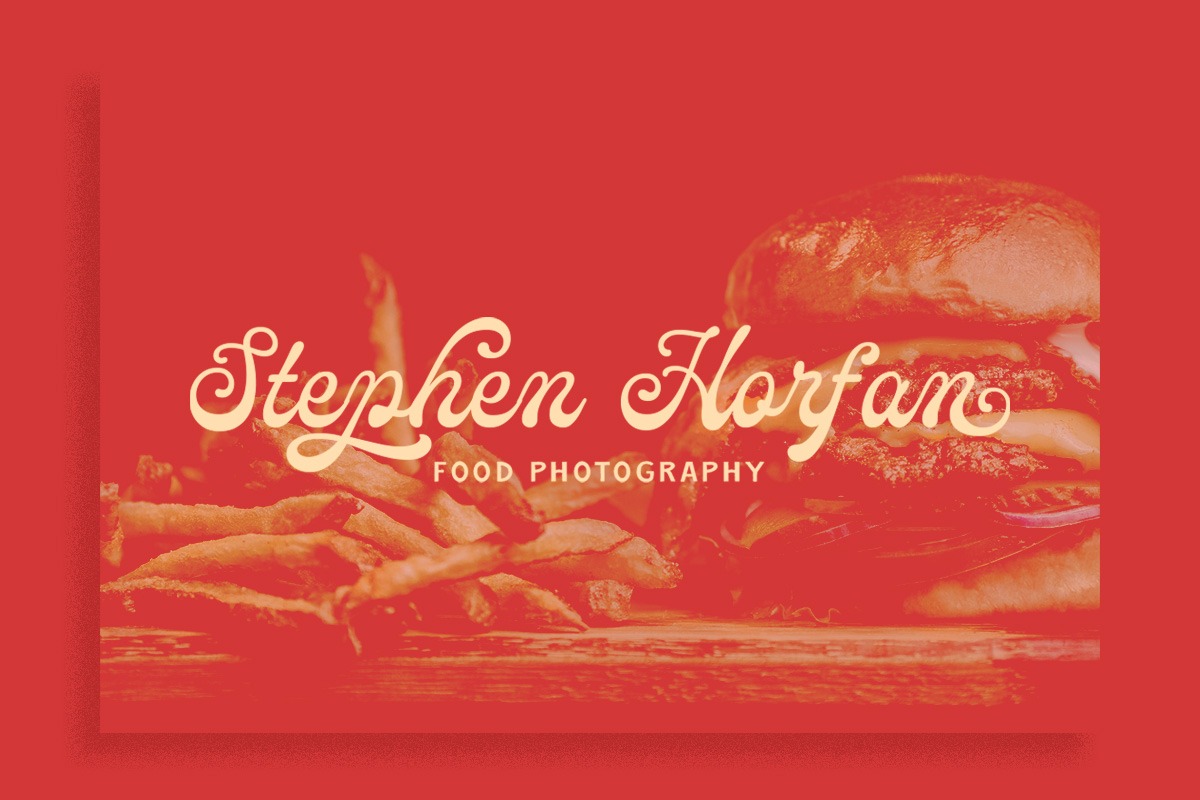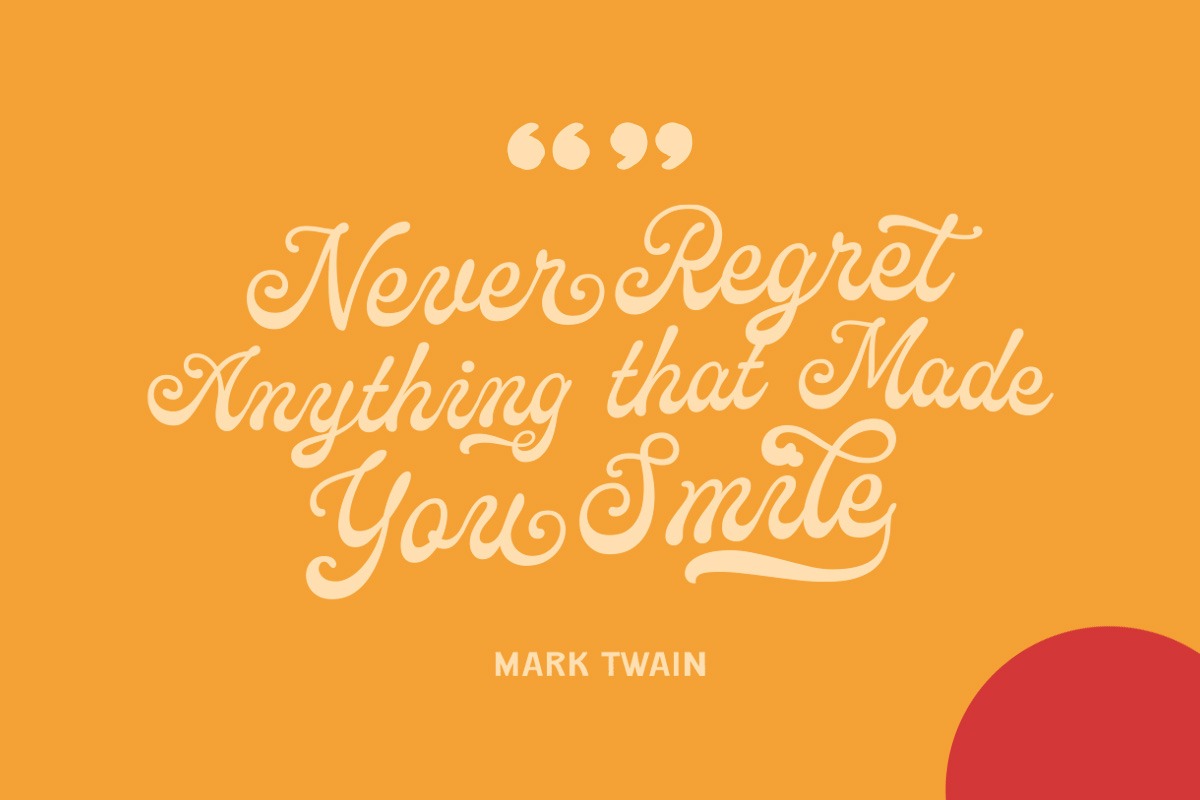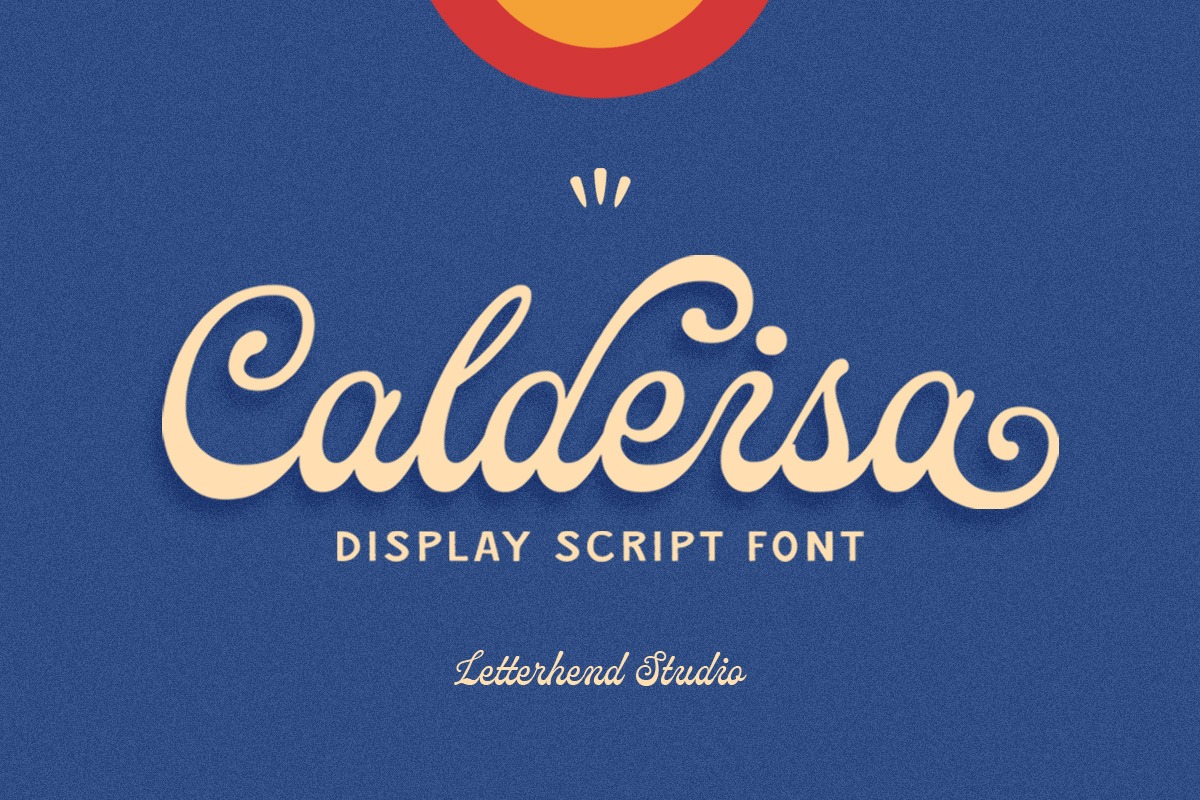
Caldeisa Font
Caldeisa Script Font
This typeface designed by Letterhend Studio is a beautiful, chic and distinct script font, featuring a lovely style. This type of font perfectly made to be applied especially in logo, headline, signage and the other various formal forms such as invitations, labels, logos, magazines, books, greeting / wedding cards, packaging, fashion, make up, stationery, novels, labels or any type of advertising purpose.